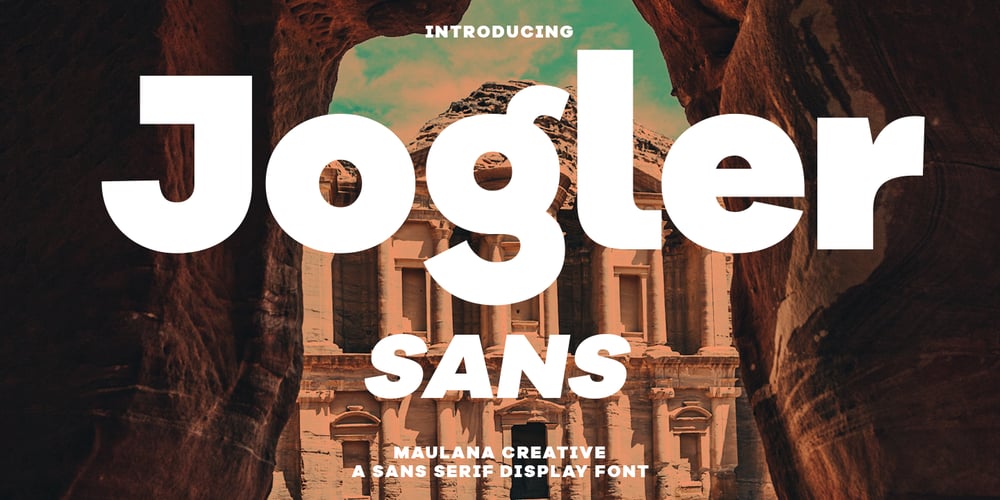
Jogler Font Family was designed by Gilang Maulana and published by Maulana Creative. Jogler contains 2 styles and family package options. Jogler is a modern sans serif font. With bold sharp stroke, fun character. To give you an extra creative work. Jogler font support multilingual more than 100+ language. This font is good for logo design, Social media, Movie Titles, Books Titles, a short text even a long text letter and good for your secondary text font with script typeface. Make a stunning work with Jogler font.Cheers, Maulana Creative